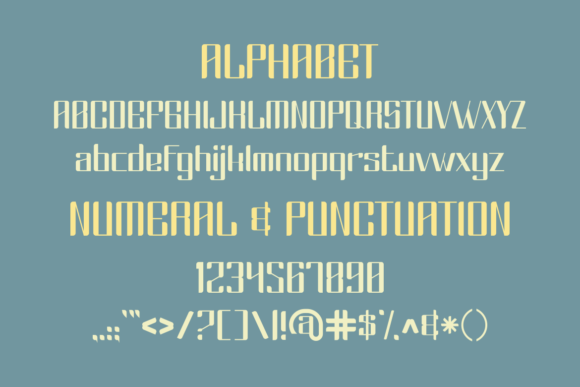
Discover Your Next Design Breakthrough with Crosver Font
As designers, we’ve all been there – staring at a blank canvas, trying to bring a concept to life. But sometimes, it’s not about the idea itself, but the right tools to make it shine. That’s where Crosver Font comes in – a bold and authentic sans serif font that’s about to become your go-to companion for any branding project.
Crosver Font is more than just a typeface; it’s a key to unlocking outstanding visual identities for logos, t-shirt printing, esports, and countless other applications. Its versatility and striking design make it a valuable asset for designers looking to elevate their work and leave a lasting impression.
Crosver Font Key Features
- Unique Characteristics: Crosver Font features a unique blend of modern and vintage elements, with a strong, geometric feel and a subtle nod to classic typography.
- Font Style: Crosver Font is available in 5 font styles: Regular, Bold, Italic, Bold Italic, and Outline, giving designers the flexibility to choose the perfect look for their project.
Crosver Font Review
Crosver Font is a sans-serif typeface that aims to be versatile and adaptable. I’ve had the chance to work with it, and here’s my honest review.
- Crosver Font has a clean and modern design that makes it suitable for a wide range of applications.
- The font’s x-height is well-balanced, making it easy to read, especially at smaller sizes.
- The font family includes a range of weights and styles, giving designers flexibility in their projects.
- Crosver Font may not be the best choice for projects requiring a strong, bold statement, as the font’s bold weight can feel a bit weak.
- The font’s italics can appear slightly irregular, which may not be suitable for projects where precision is crucial.
Crosver Font is a solid choice for designers who need a clean, modern sans-serif typeface. While it may have some limitations, its versatility and adaptability make it a valuable addition to any design project. With some careful consideration of its limitations, Crosver Font can be a great asset for designers looking for a reliable, easy-to-use font.
Tips for Getting the Most Out of Crosver Font
For best results, use Crosver Font in headings and titles to create a bold and eye-catching effect. Pair it with a clean and simple font for body text to create a visually appealing contrast.
Crosver Font is ideal for use in:
- Headings and titles in marketing materials and presentations.
- Brand logos and identity design.
- Typography-based artwork and designs.